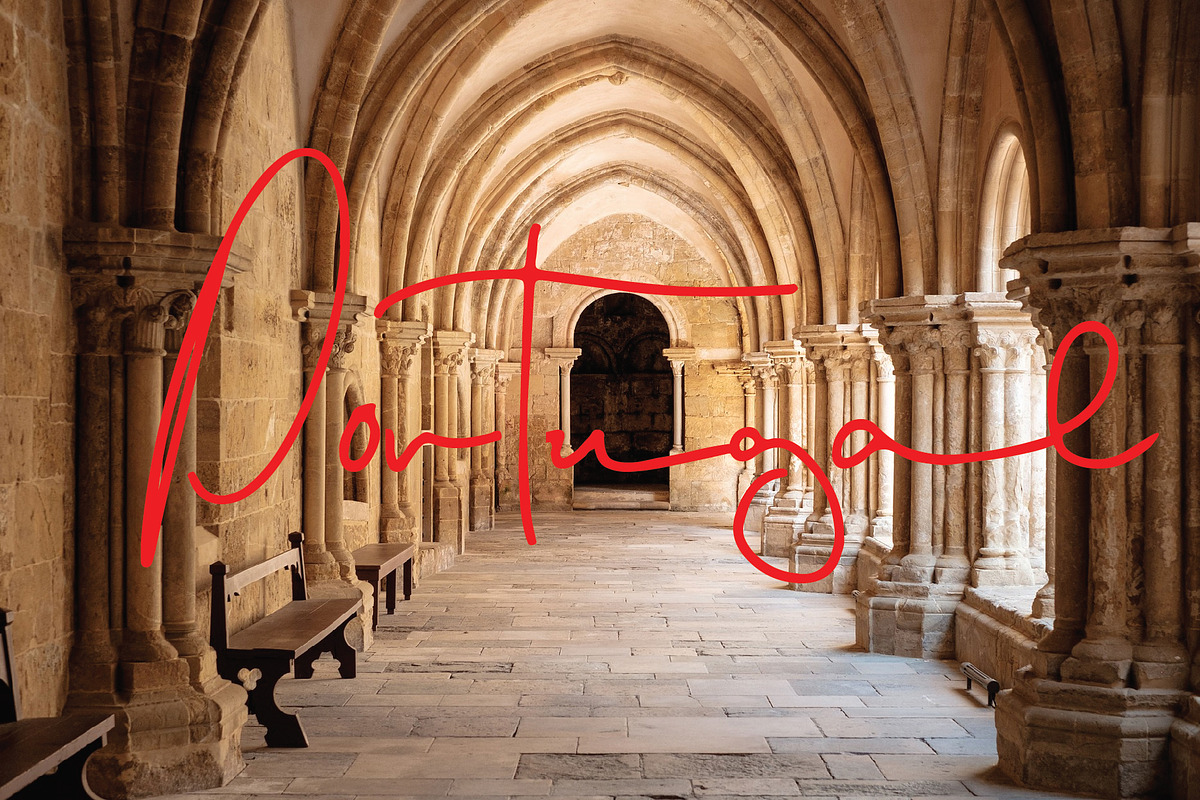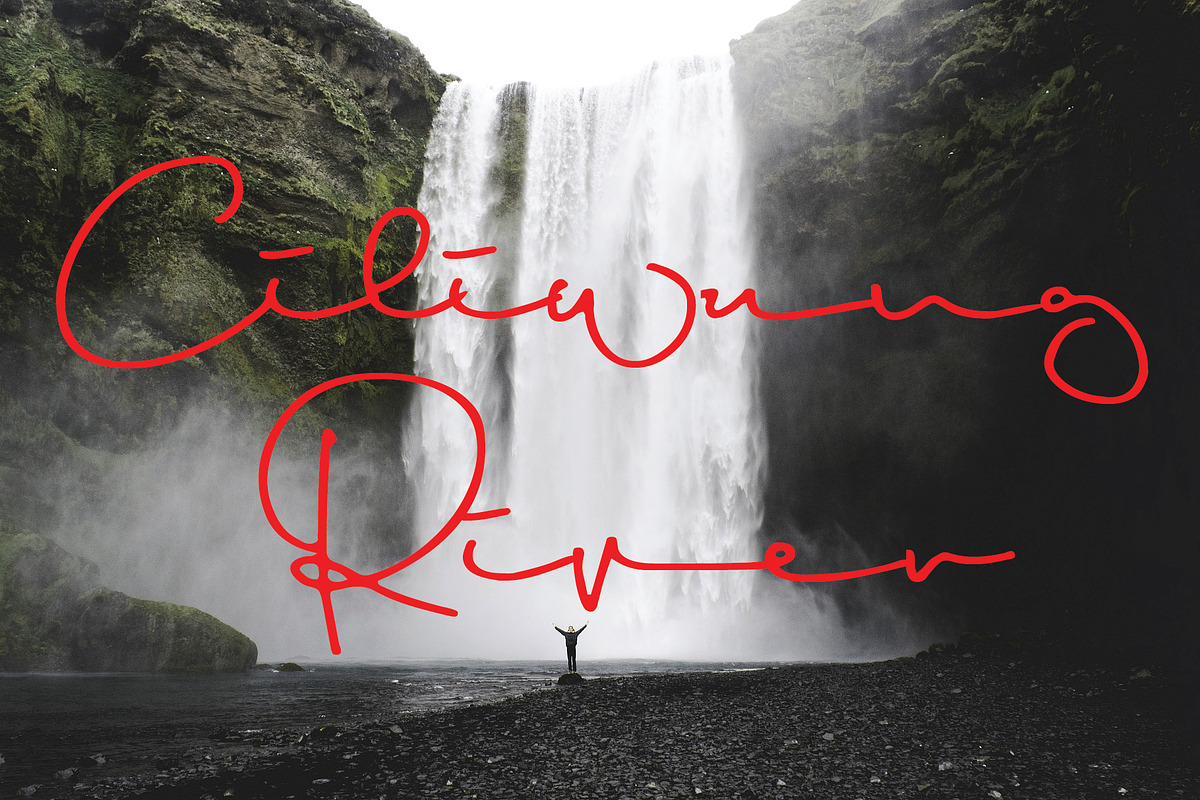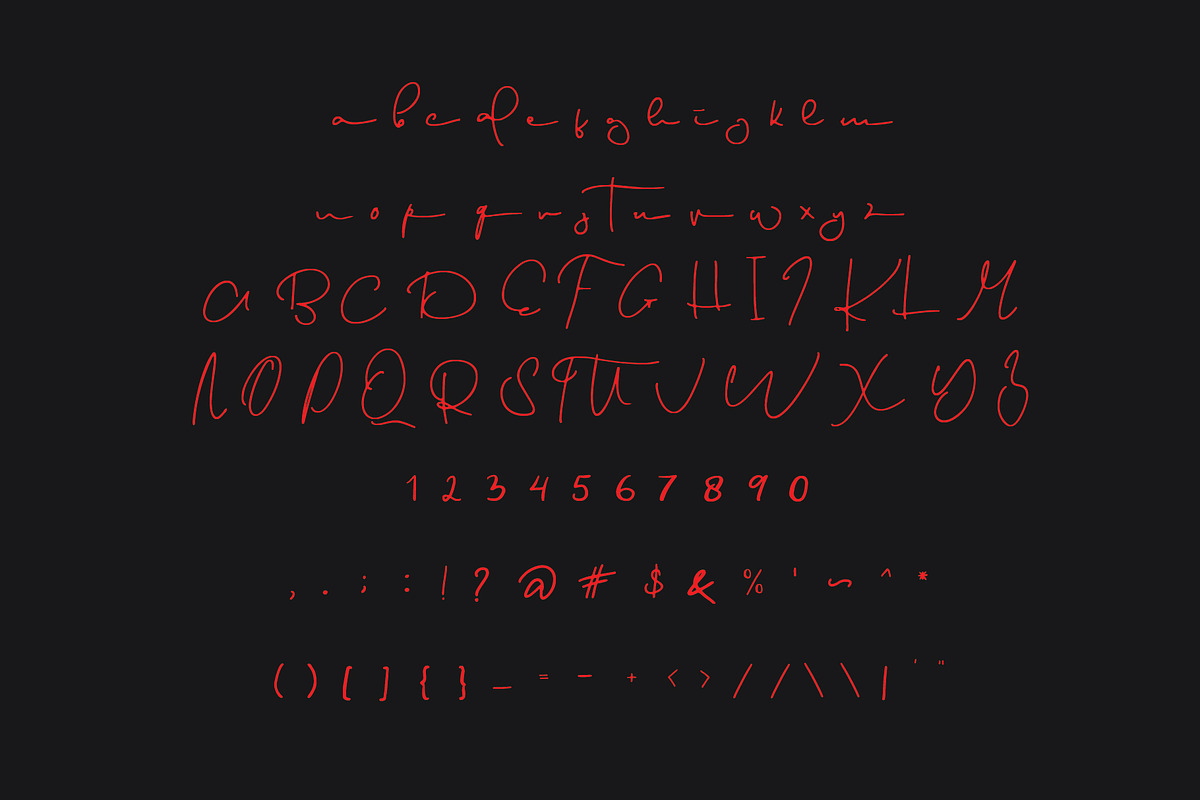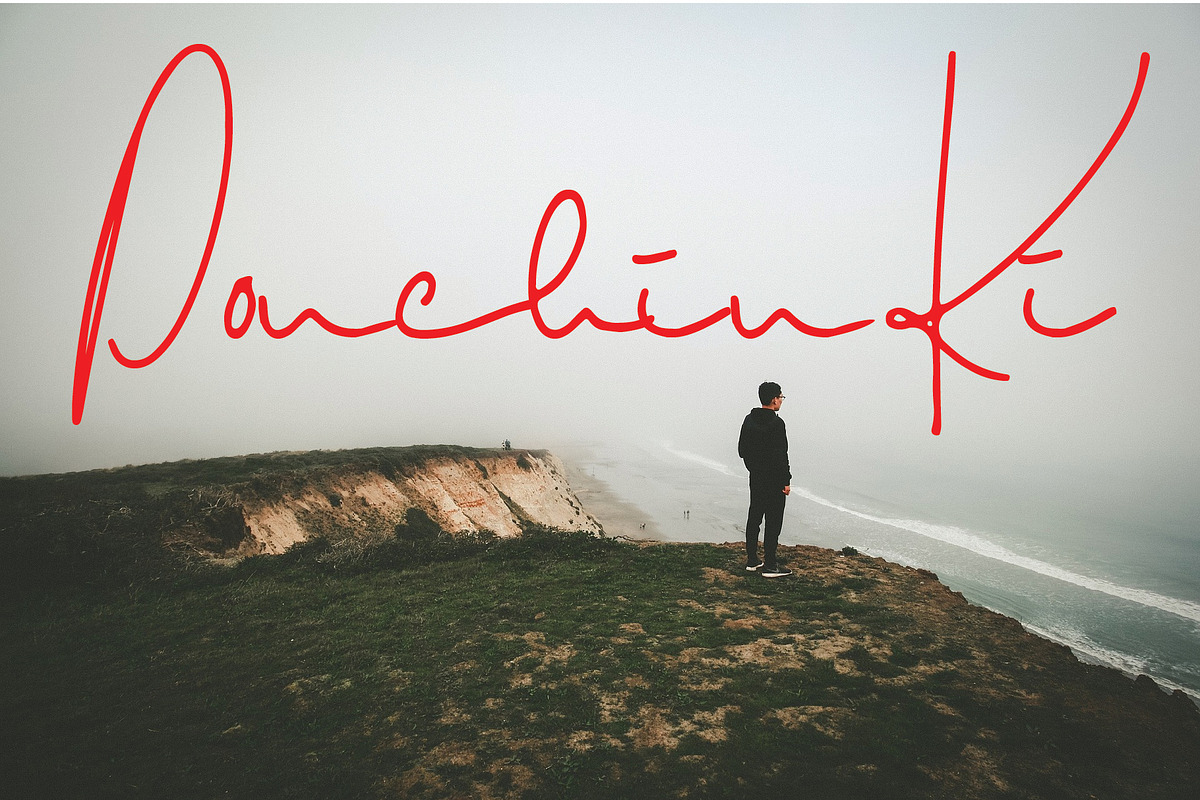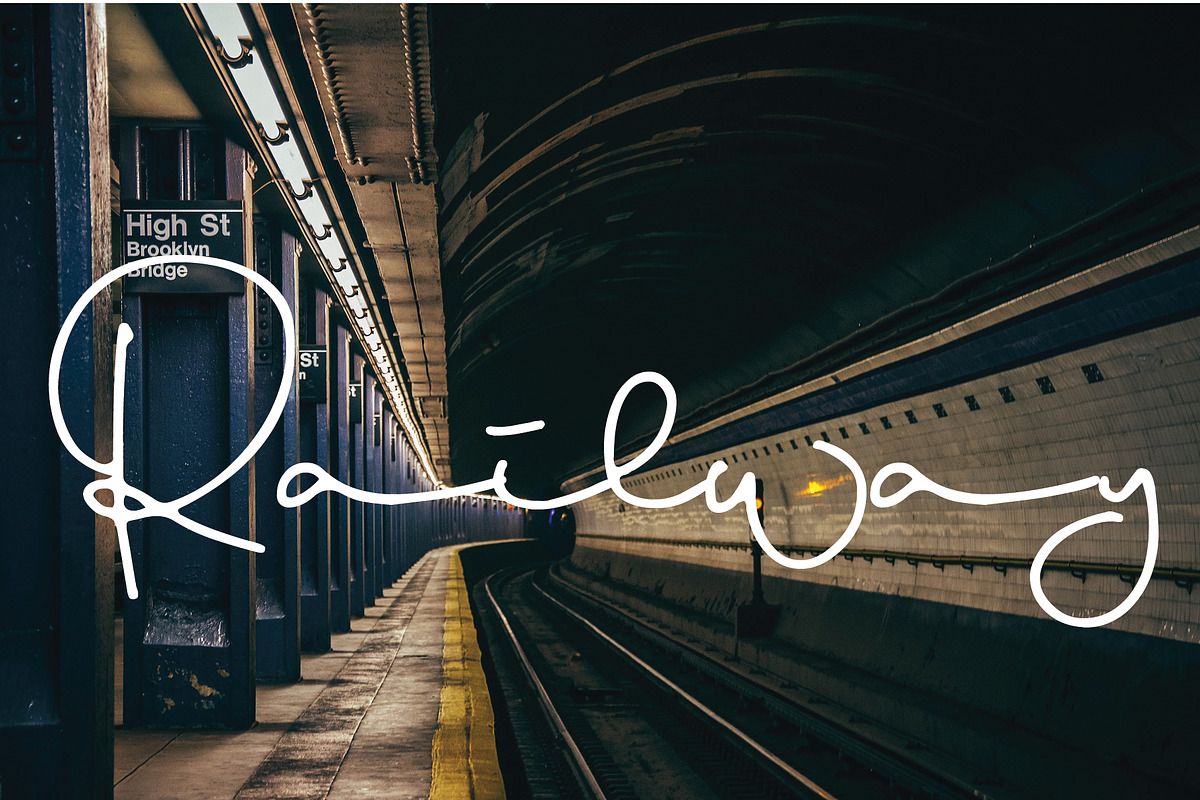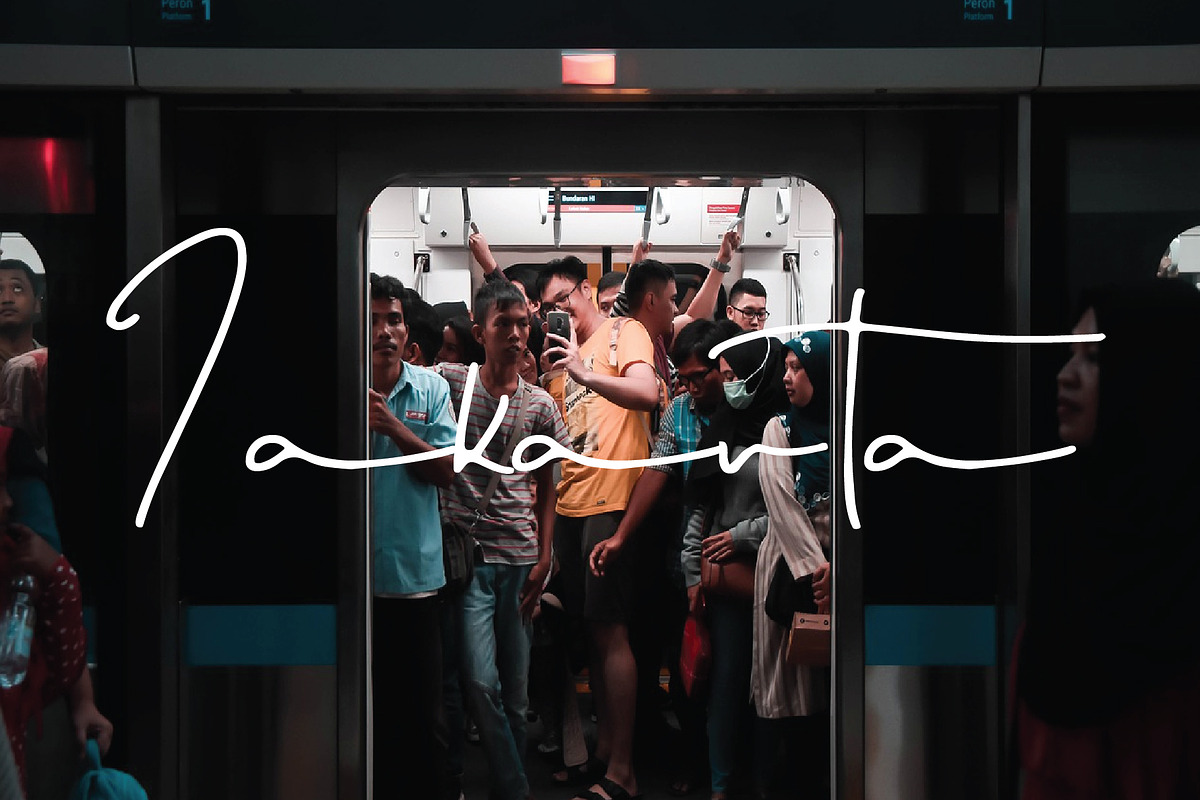
English font
English Font by Goodigital13 is a font selected for branding, posters, packaging, typography.
Why English font is worth a look
English font by Mariyana fits naturally into Branding, posters, packaging, typography.